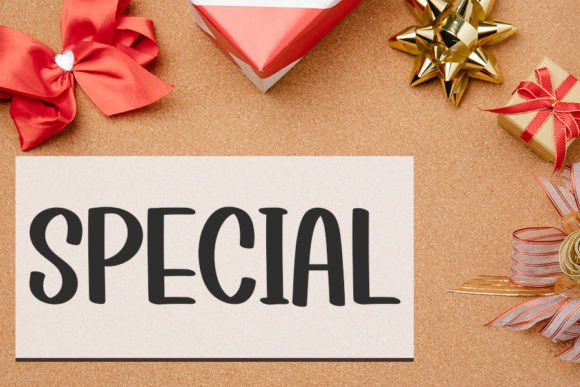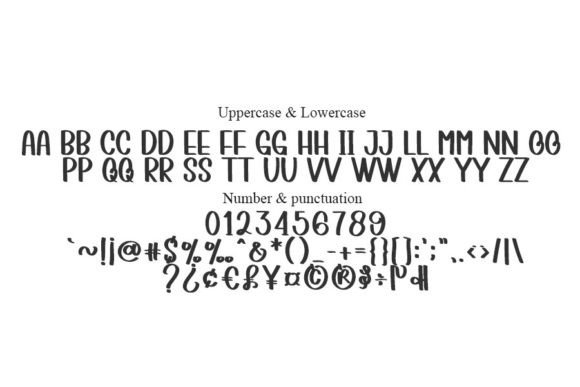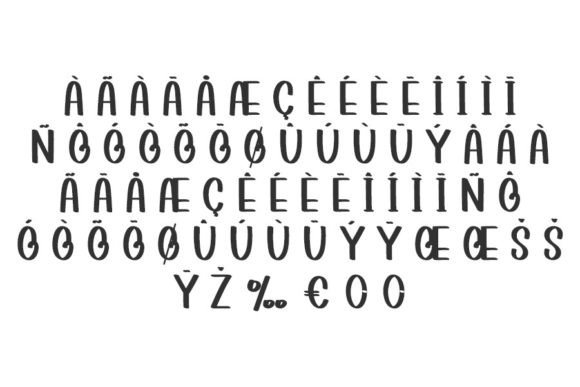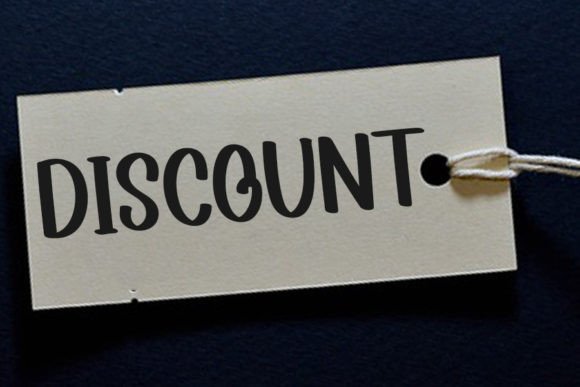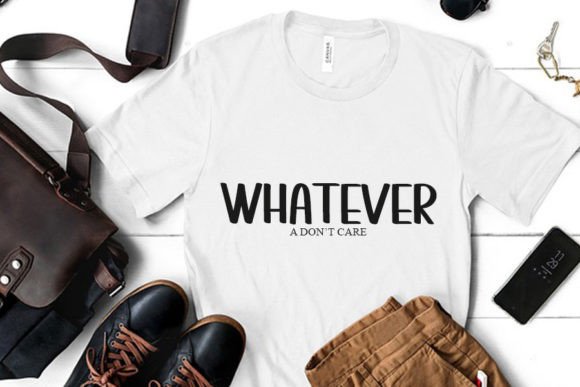
Add Elegant Style with Simple Beach Font
The Simple Beach font is a trendy handwritten script that combines a contemporary atmosphere with impeccable form inspired by timeless classic calligraphy. This font adds elegance and class to any design project, making it an excellent choice for creatives seeking a modern yet sophisticated handwritten style.
Perfect for Elegant Branding and Invitations
The Simple Beach font fits beautifully in various design contexts such as wedding invitations, logos, branding materials, social media graphics, and print designs. Its graceful strokes and balanced letterforms give your projects a refined and polished appearance.
A Handwritten Script with Classic Inspiration
Each character in the Simple Beach font is meticulously crafted to capture the essence of classic calligraphy while maintaining a fresh and modern appeal. The flowing design and clean lines enhance readability while delivering style and sophistication.
Despite its decorative and classic style, the Simple Beach font maintains excellent readability across different sizes. Whether used for large headlines or smaller text elements, it balances beauty with clarity, making it suitable for a wide range of creative projects.
Make Your Designs Stand Out with Sophistication
Typography defines the tone and personality of your design, and Simple Beach adds a sophisticated, timeless spirit. If you want to elevate your projects with a trendy yet classic handwritten script, download the Simple Beach font today and create elegant and memorable visuals.